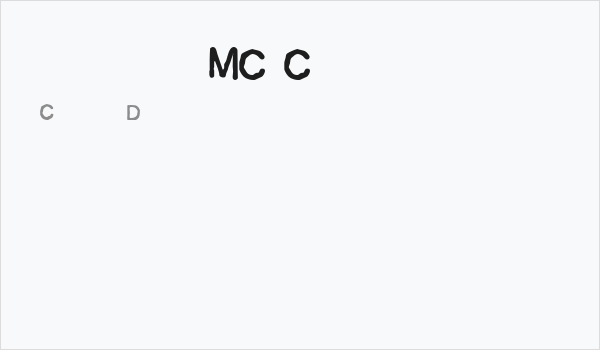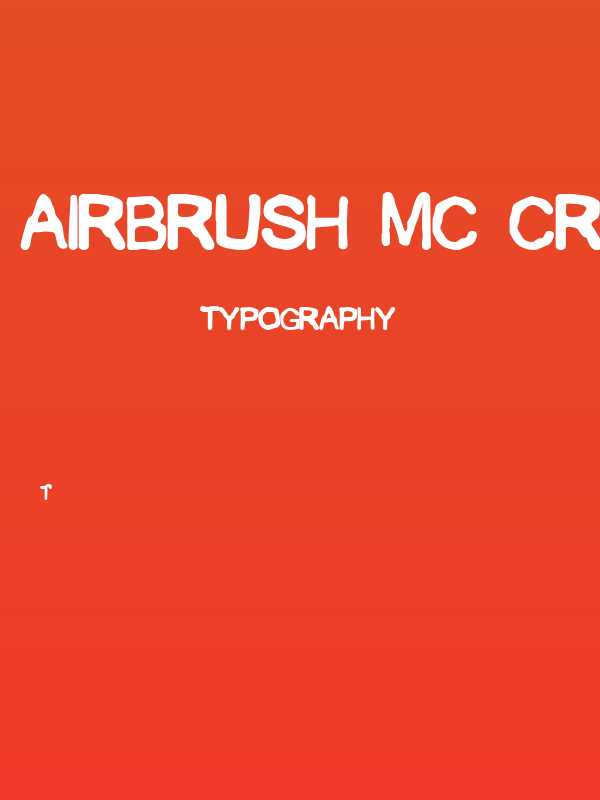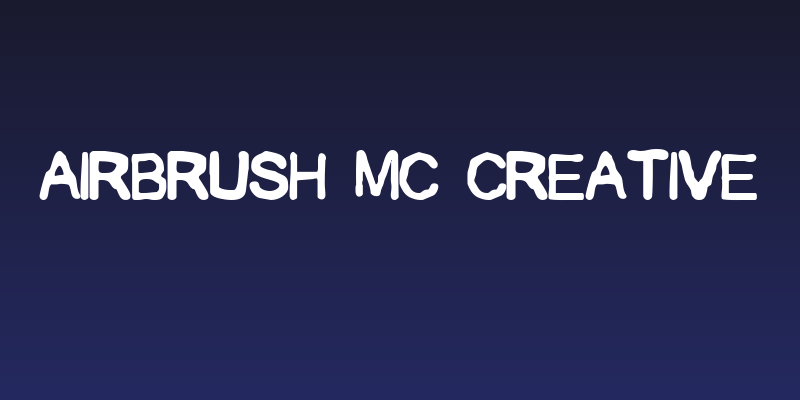
airbrush MC.Creative Font
airbrush MC.Creative Description
This font features a playful and bold style with rounded edges and a hand-drawn appearance. The characters are uniformly thick, giving it a consistent and cohesive look. The uppercase letters are prominent and slightly condensed, while the lowercase letters maintain a similar width, ensuring readability. The font's design is reminiscent of graffiti or street art, with a casual and informal vibe. It is well-suited for creative projects that require a touch of personality and flair. The characters are evenly spaced, providing a balanced and harmonious visual flow.
| Proposed Projects | Ideal for posters, children's books, logos, and creative branding. |